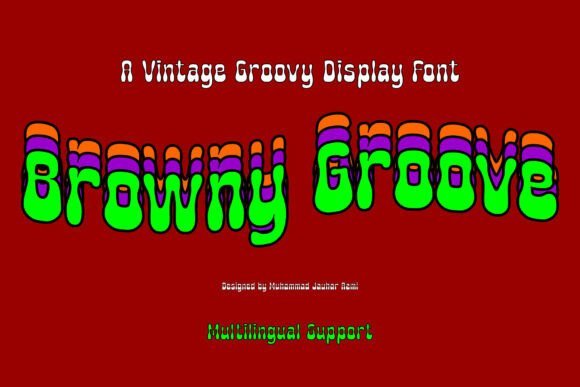
Get Ready to Groove with the Perfect Retro Font
Have you ever been browsing through a vintage clothing store, and suddenly, a funky t-shirt catches your eye? The colors are bright, the patterns are bold, and the typography is straight out of the 1970s. That’s when you know you’ve found something special. The same feeling can be achieved with the right font, and that’s where the Browny Groove Font comes in.
As a designer, you’re always on the lookout for that perfect font to give your projects an extra oomph. That’s why the Browny Groove Font is a valuable addition to your design toolkit. With its playful, wavy letters, this font brings a 70s psychedelic feel to any design. Whether you’re creating a poster, logo, or anything in between, the Browny Groove Font is sure to make your project stand out.
Browny Groove Font Key Features
- Unique Characteristics: The Browny Groove font features a distinctive, hand-drawn feel with subtle texture and imperfections, giving it a unique, organic look.
Browny Groove Font Review
Overall, I found the Browny Groove Font to be a unique and interesting addition to any design project. ✨ Its quirky, hand-drawn feel is reminiscent of traditional art, and it adds a touch of warmth to any text. The font’s versatility shines through in its ability to work well for both display and body text.
One of the standout features of the Browny Groove Font is its extensive character set. ✨ It includes a wide range of punctuation marks, numerals, and special characters, making it a great choice for designers who need a font that can handle complex text layouts.
However, I did encounter a few limitations with the Browny Groove Font. ⚠️ The font’s ligature system can be a bit unpredictable at times, resulting in awkward spacing between certain letter combinations. Additionally, the font’s variable font weights can make it difficult to achieve a consistent look across different devices and screen sizes.
In conclusion, I would say that the Browny Groove Font is a great choice for designers who want to add a touch of personality to their projects. While it may have a few limitations, its unique feel and versatility make it a valuable addition to any font library.
- Unique, hand-drawn feel
- Extensive character set
- Versatile for both display and body text
- Variable font weights
The Browny Groove Font is suitable for:
- Typography projects that require a vintage or retro feel.
- Branding and logo design projects that need a unique and distinctive font.
- Advertising and marketing materials that require a playful and eye-catching font.